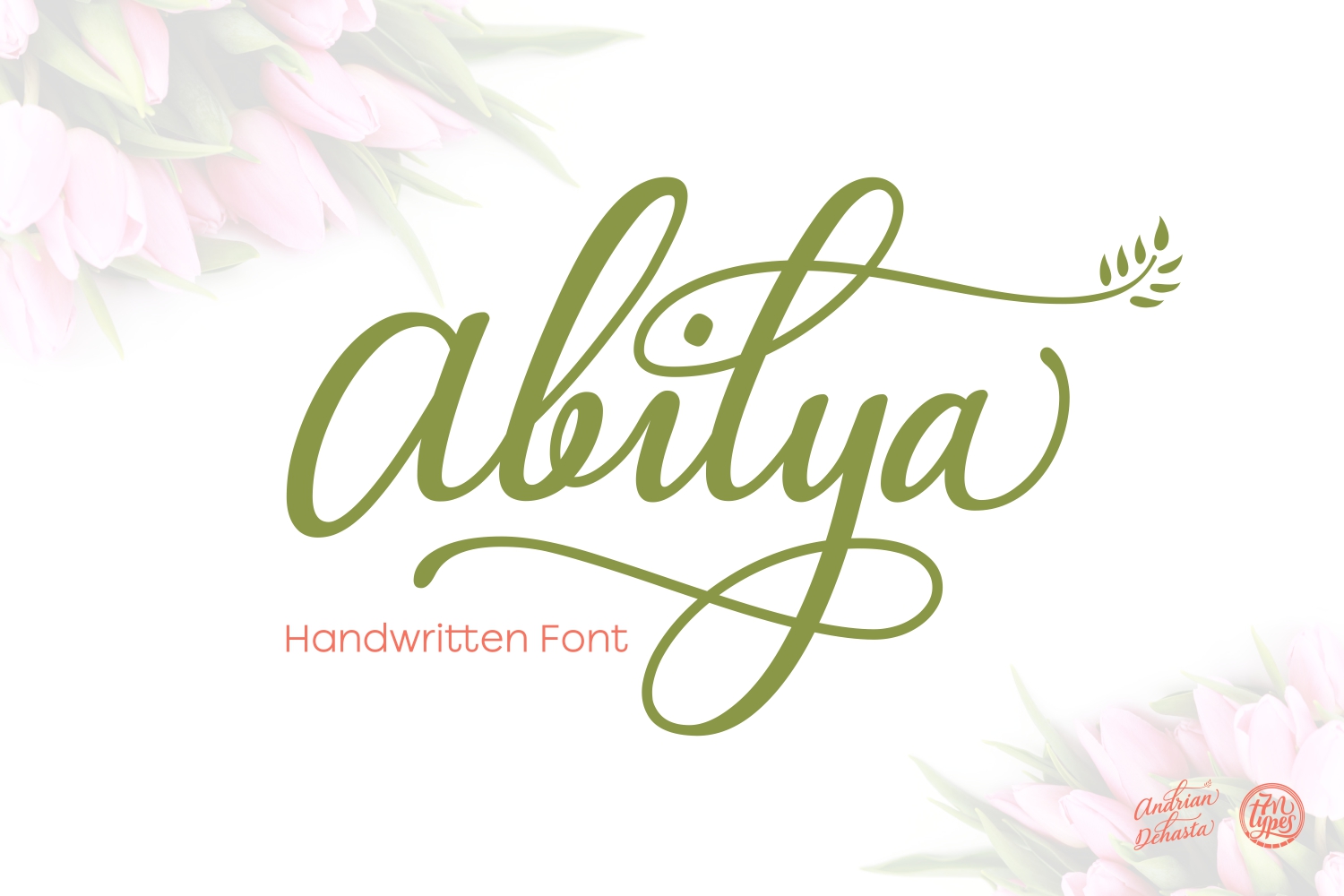
Abilya Font
About Abilya Font
Abilya is an elegant script font, perfect for a ton of different project types. This elegant font is ideal for romantic messages, invitationals and more!